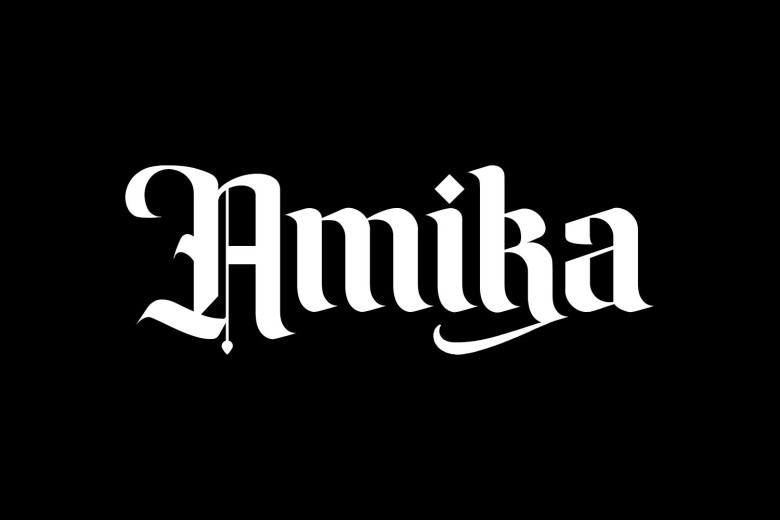
Amika Modern Blackletter Typeface
Amika is a modern blackletter typeface. It features a classic style and gorgeous alternates. Use it to add that special retro touch to any design idea you can think of! Amika Font is includes full set of gorgeous uppercase and lowercase letters, numerals, punctuation, alternate characters, multilingual characters support and extra ornaments, giving realistic calligraphy blackletter style.